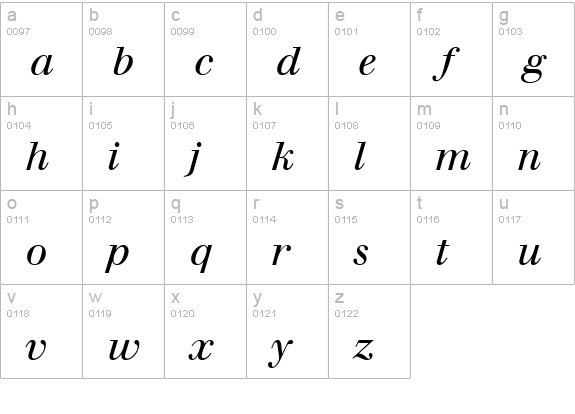
Walbaum Italic Oldstyle Figures Font Details
Walbaum Italic Oldstyle Figures is a distinctive, italic variant in the Walbaum typeface family \xE2\x80\x94 well suited to design and typography projects.
Walbaum Italic Oldstyle Figures is a charming and elegant font that adds a touch of sophistication to any design project. With its graceful curves and delicate strokes, this font exudes a sense of classical beauty. The italicized letters lend a sense of movement and fluidity, making it perfect for conveying a sense of elegance and refinement. The Oldstyle Figures in this font are particularly noteworthy, as they bring a sense of vintage charm to any design. These figures harken back to a time when typography was an art form in itself, with each number carefully crafted to harmonize with the rest of the design. Whether you are designing a wedding invitation, a book cover, or a restaurant menu, the Oldstyle Figures in Walbaum Italic will add a touch of nostalgia and authenticity to your work. And the best part? Walbaum Italic Oldstyle Figures font is freely available to download at FontsMarket.com. This means that you can enhance your design projects with this exquisite font without any financial constraints. With just a few clicks, you can elevate your designs and make them truly stand out from the crowd. So why wait? Download Walbaum Italic Oldstyle Figures font today and let its timeless beauty transform your designs. Whether you are a professional designer or a creative enthusiast, this font will become an invaluable tool in your repertoire. Embrace the elegance and grace of Walbaum Italic Oldstyle Figures and watch as your designs come to life in ways you never thought possible.